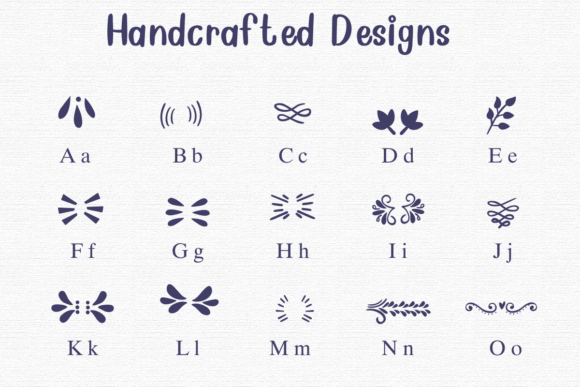
Handcrafted Designs Font
Handcrafted Designs is a decorative dingbat font featuring elegant flourishes, swirls, borders, and botanical motifs. Ideal for wedding invitations, cards, logos, and vintage-inspired projects that need a touch of handcrafted elegance.